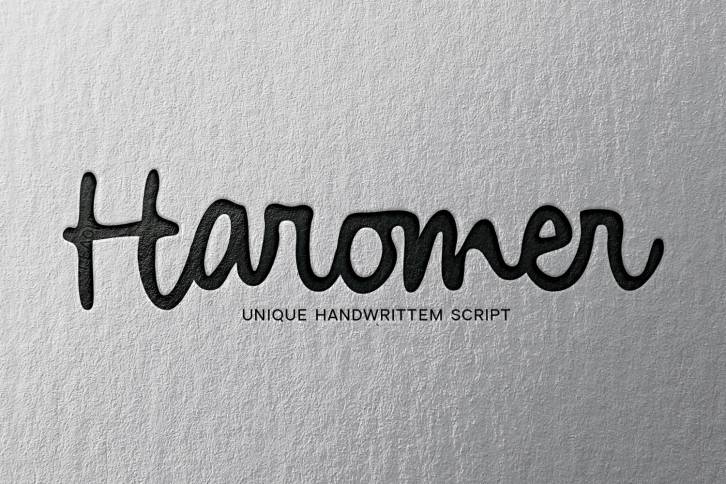
Haromer is a trendy and unique font with an authentic style. It was designed by Cititype and it's a great choice for creative people who need such a font. It was released on October 12, 2020 and the file size is 18.26 MB. Haromer will add an organic vibe to any design idea!